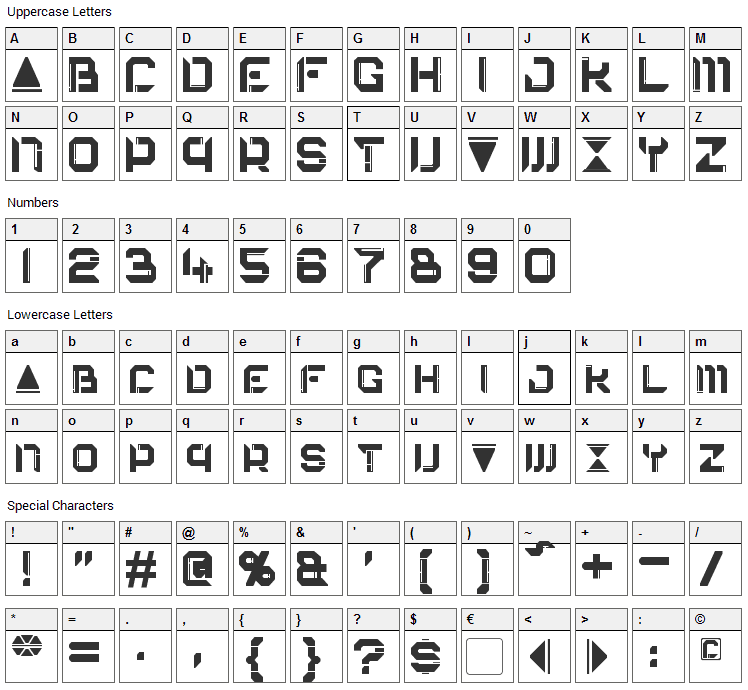
Eurocorp Font
Based on the logo and menus within the classic "Syndicate Wars" game from Bullfrog Entertainment. Includes punctuation, accent characters, and Euro.